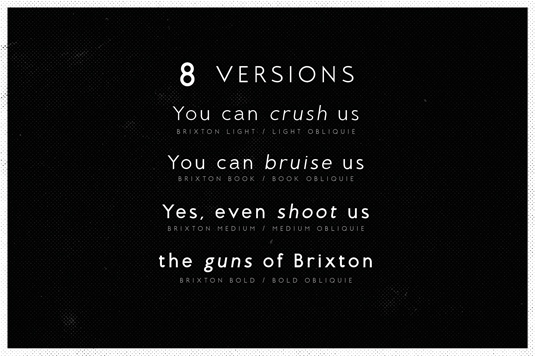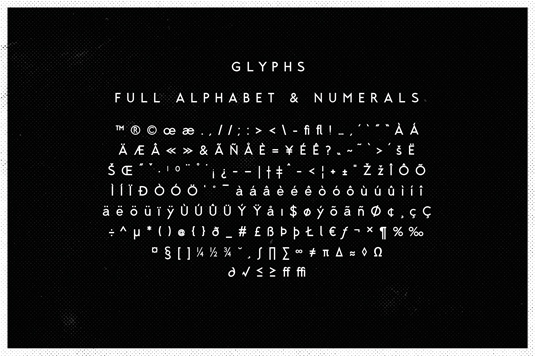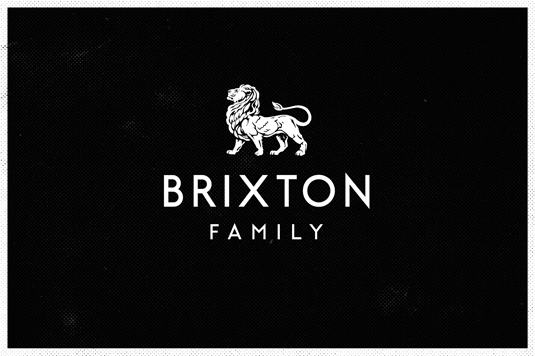
Font of the day: Brixton
Every day we showcase the best fonts on the web. Today it's Brixton by Luke Ferrand.
Brixton by Luke Ferrand
Designer Luke Ferrand is the man behind today's typeface of choice Brixton. Inspired by a bus journey from his house in Crystal Palace to Brixton, South London, Ferrand drew influences from Edward Johnston's typeface for Transport for London and urban life in general.